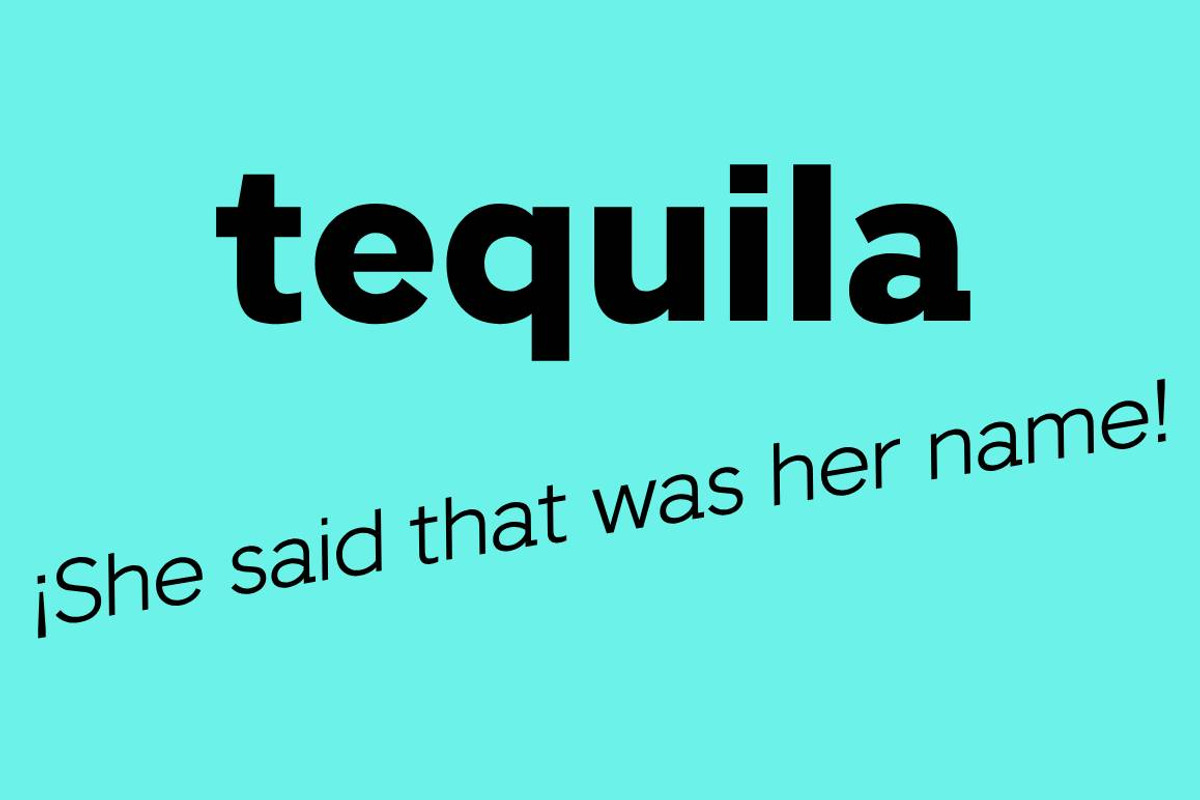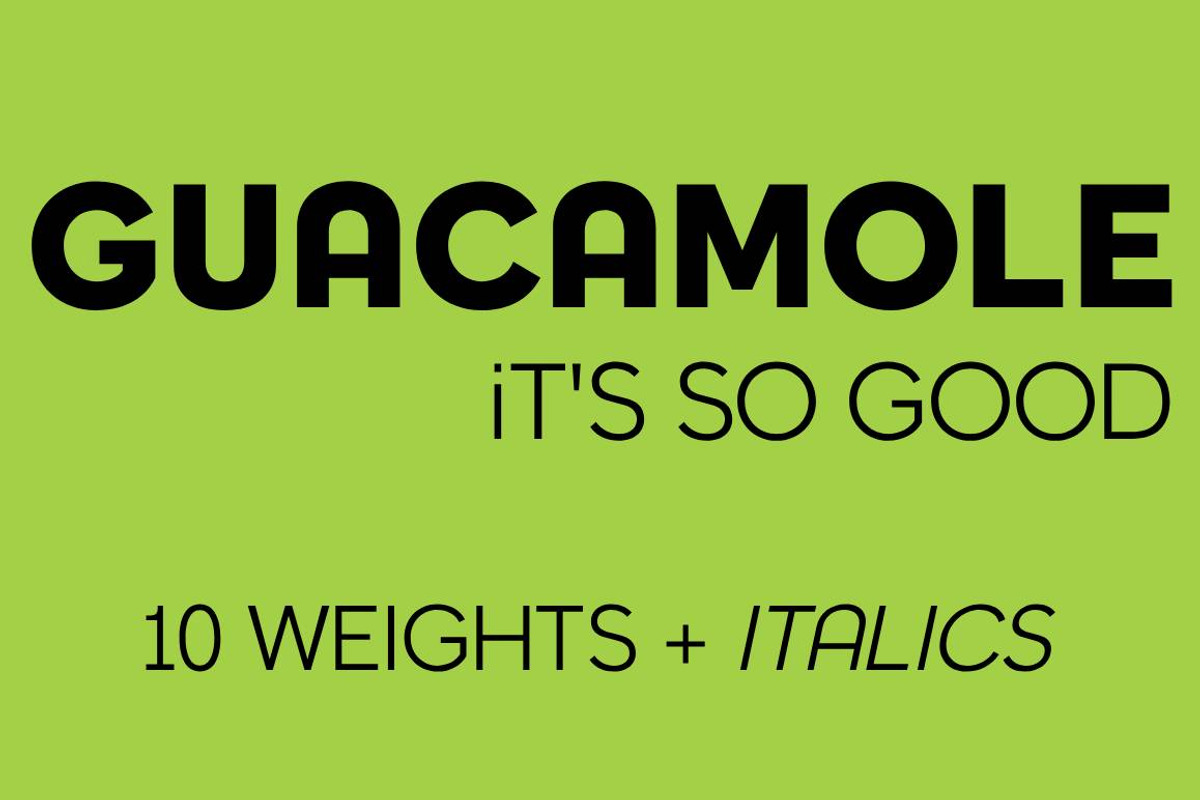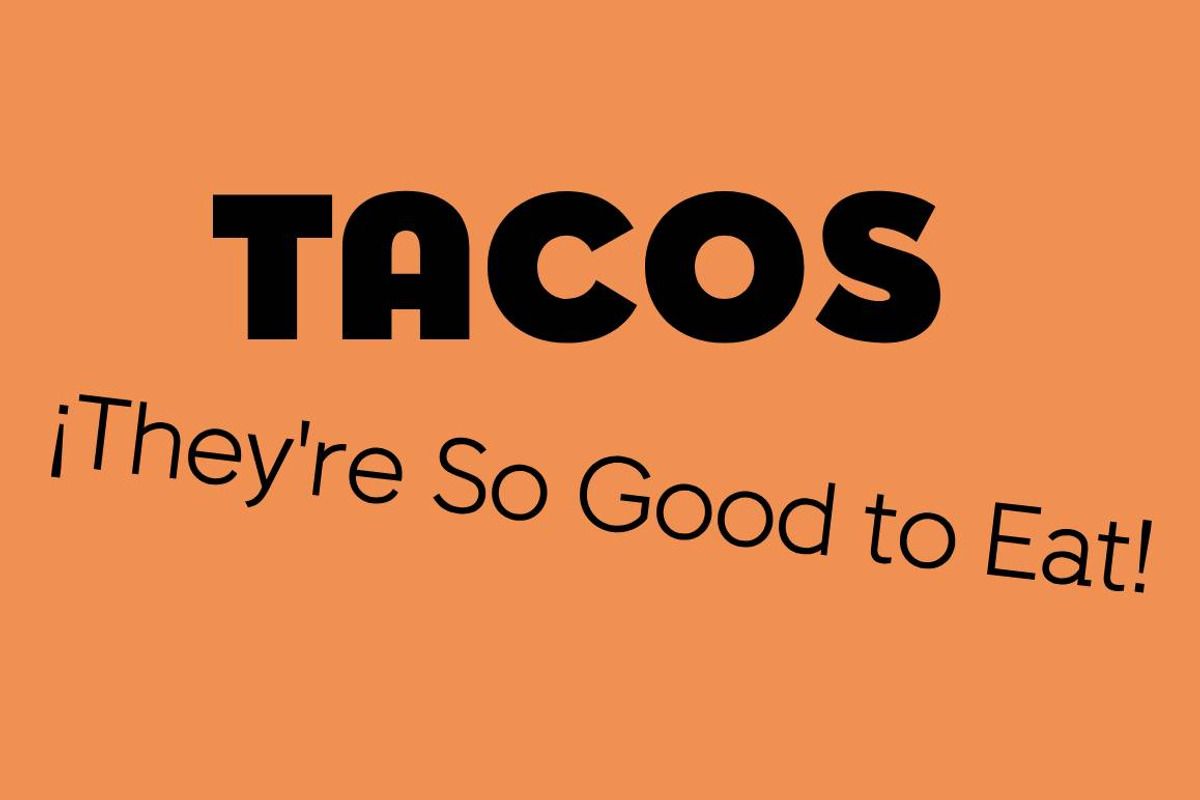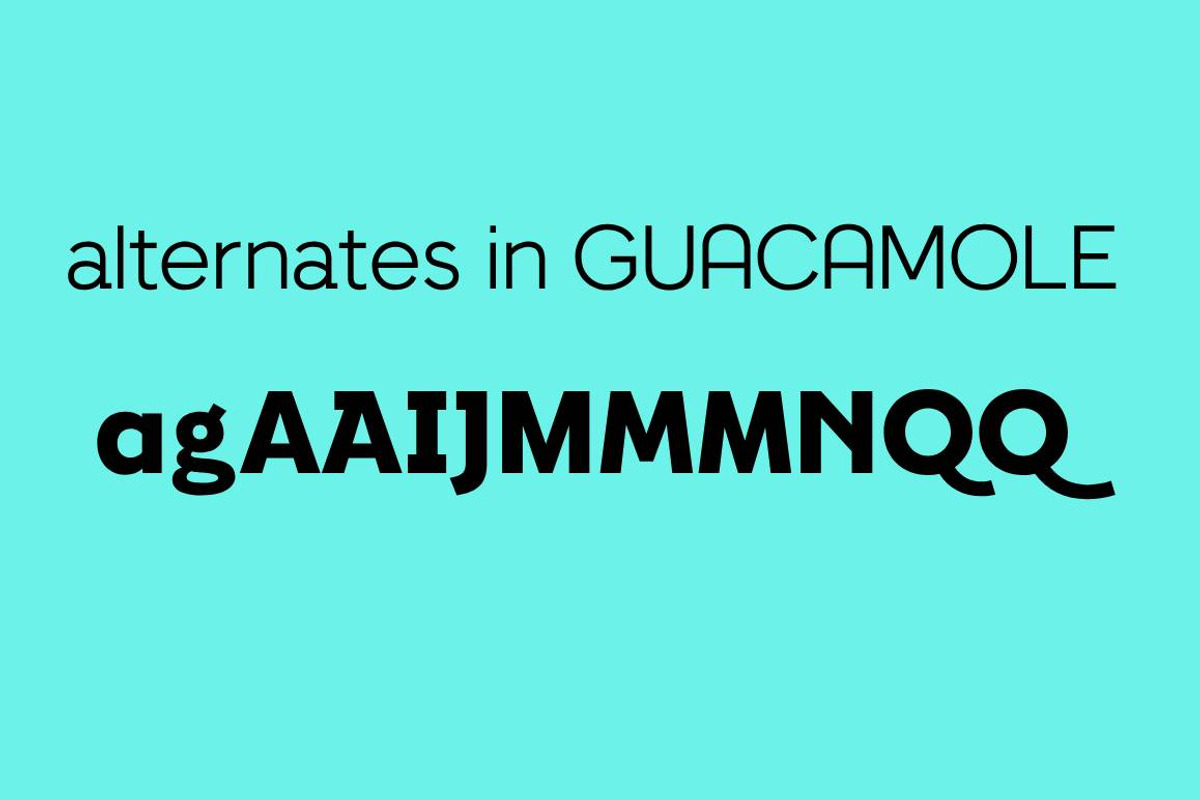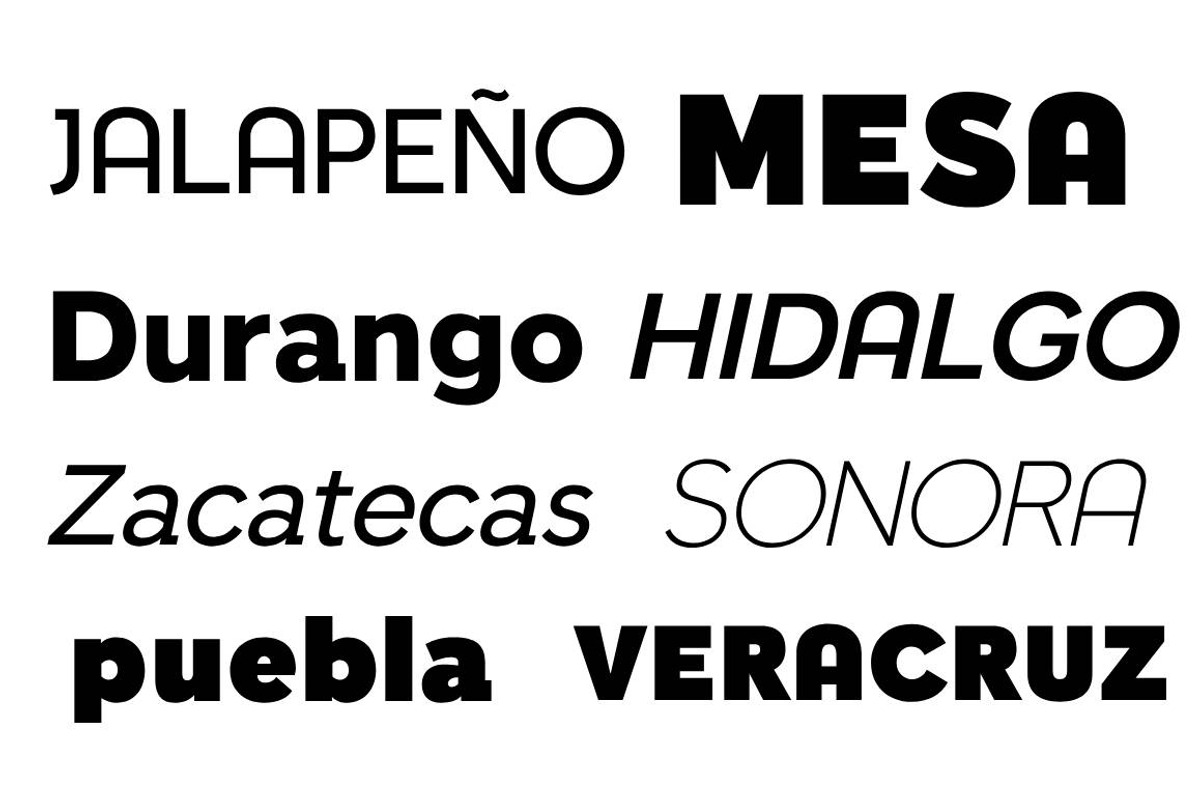
Guacamole
The inspiration for the Guacamole font came from an old postcard from the 101 CAFE in Santa Barbara California.
With its geometric design, including round top A, this font works well for casual projects with a hometown country feeling.
However, this font will also work very well for a fine dining restaurant menu or logo.